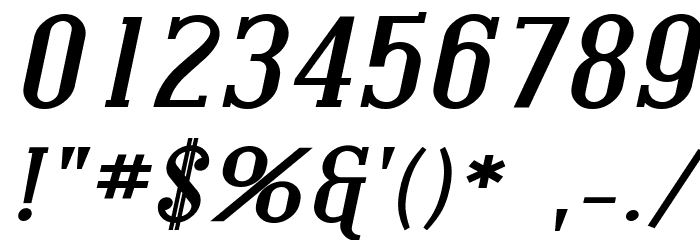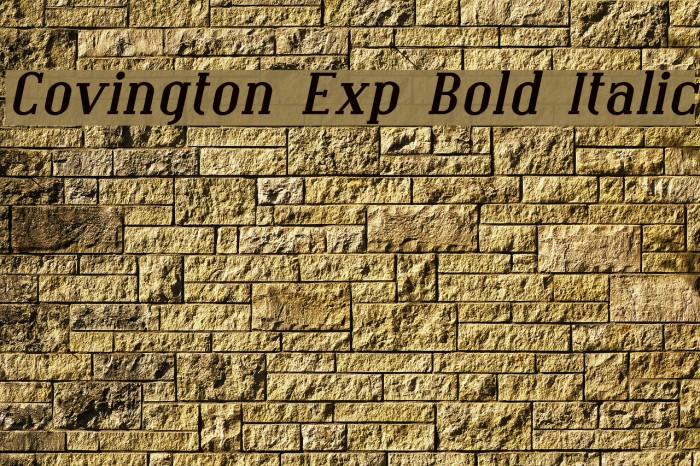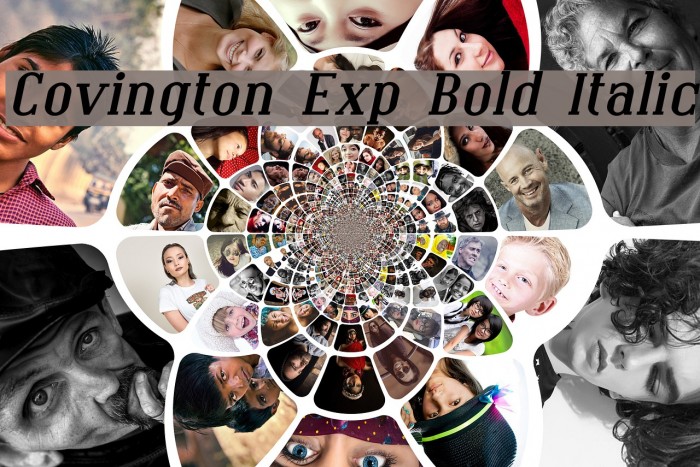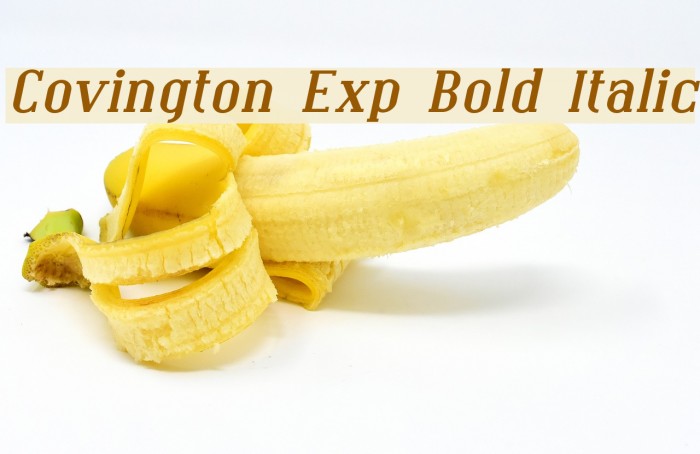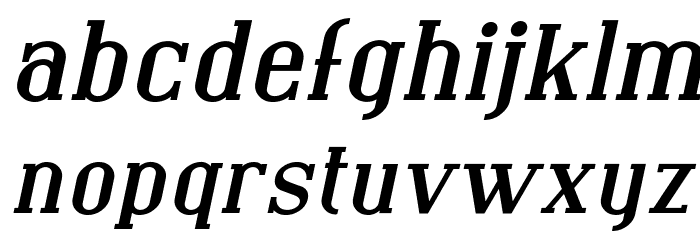
Covington Exp Bold Italic Font
Covington Exp Bold Italic Description
This font exhibits a bold and italicized style, characterized by its strong and dynamic presence. The letters are slightly condensed, giving a sleek and modern appearance. The strokes are consistent in weight, providing a uniform look across all characters. The italic slant adds a sense of motion and elegance, making it suitable for attention-grabbing headlines or titles. The numerals are clear and legible, maintaining the same boldness as the alphabetic characters. Special characters are well-defined, ensuring versatility in various design contexts.
| Proposed Projects | Ideal for branding, advertising, and editorial design where a strong, modern impact is desired. |